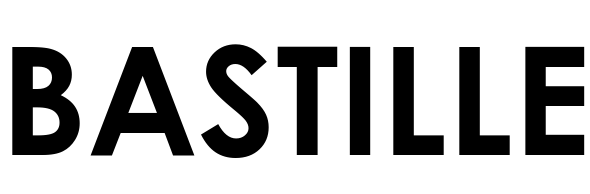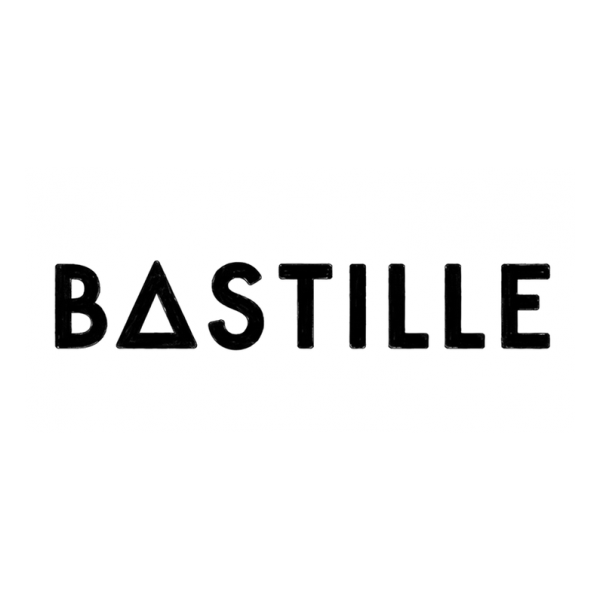
Bastille Font
BandBastille stylized as BΔSTILLE, is an English indie rock band formed in 2010. The band consists of lead vocalist and pianist Dan Smith, keyboardist Kyle Simmons, bassist and backing vocalist Will Farquarson, and drummer Chris "Woody" Wood. The band's name is derived from Bastille Day, which is celebrated on July 14th in France.
The above is the Bastille logo that can be seen on their releases like Bad Blood, All This Bad Blood etc. In the logo, you can see a sans serif font called BastilleFont, which according to their website is their official font. There are a few alternatives that look similar to the BastilleFont that you might try since it is not available for download such as Century Gothic Bold or Futura Medium.